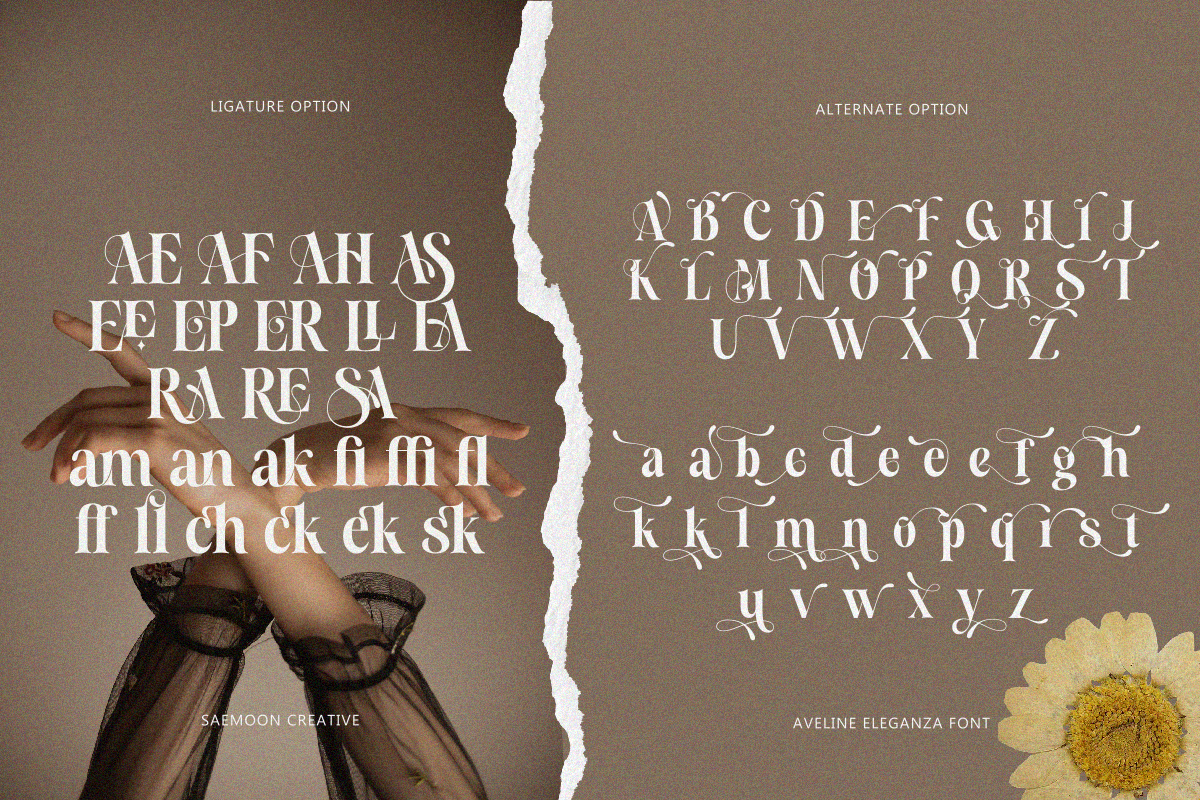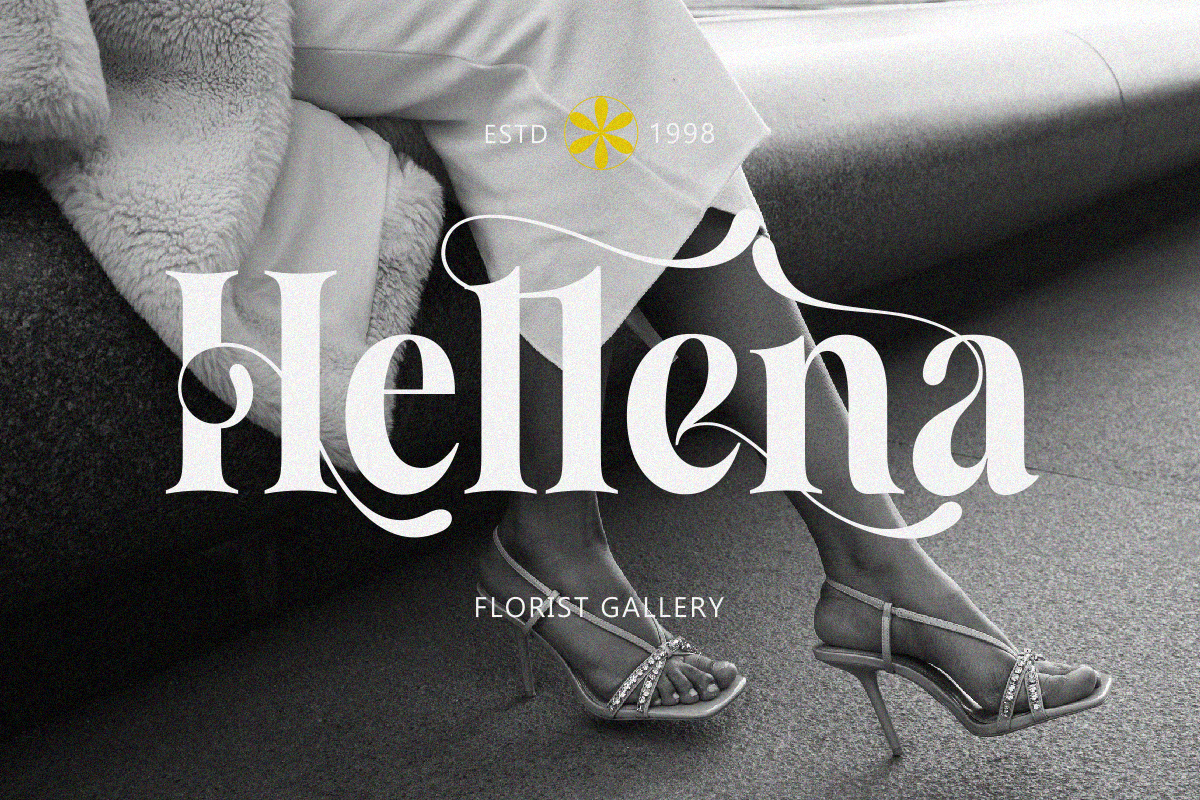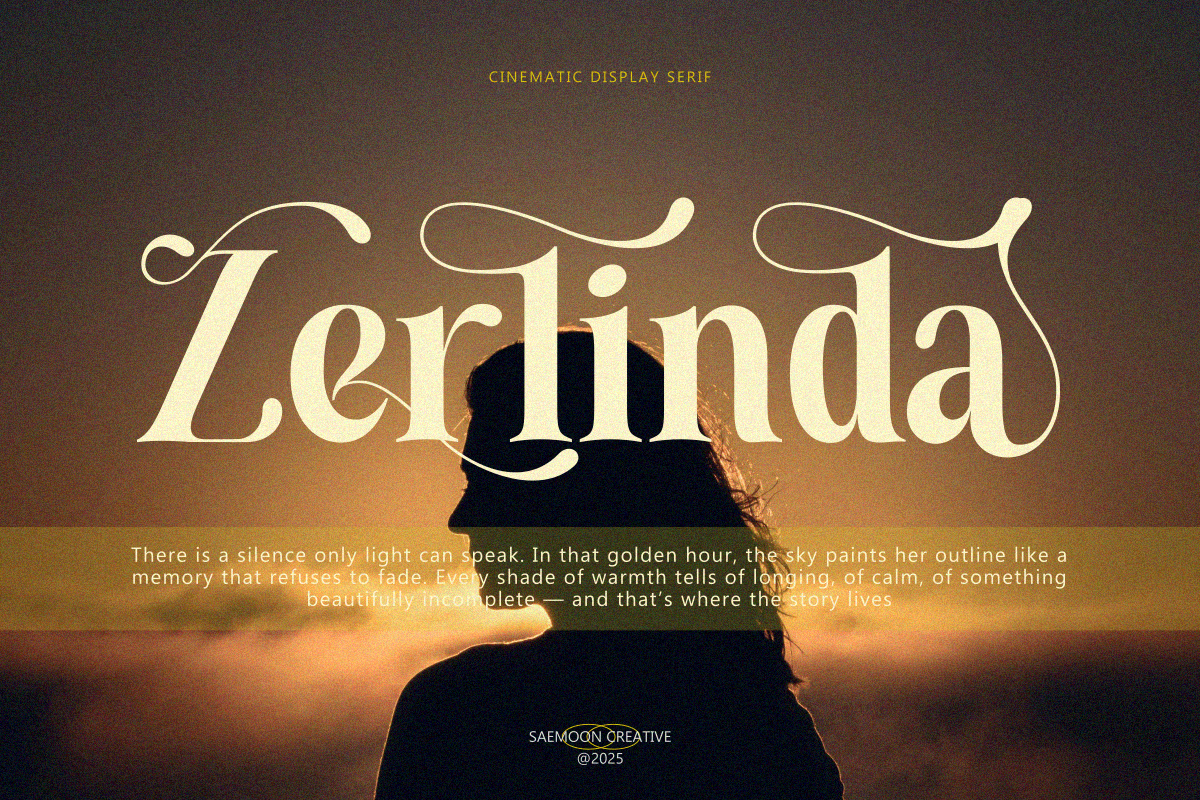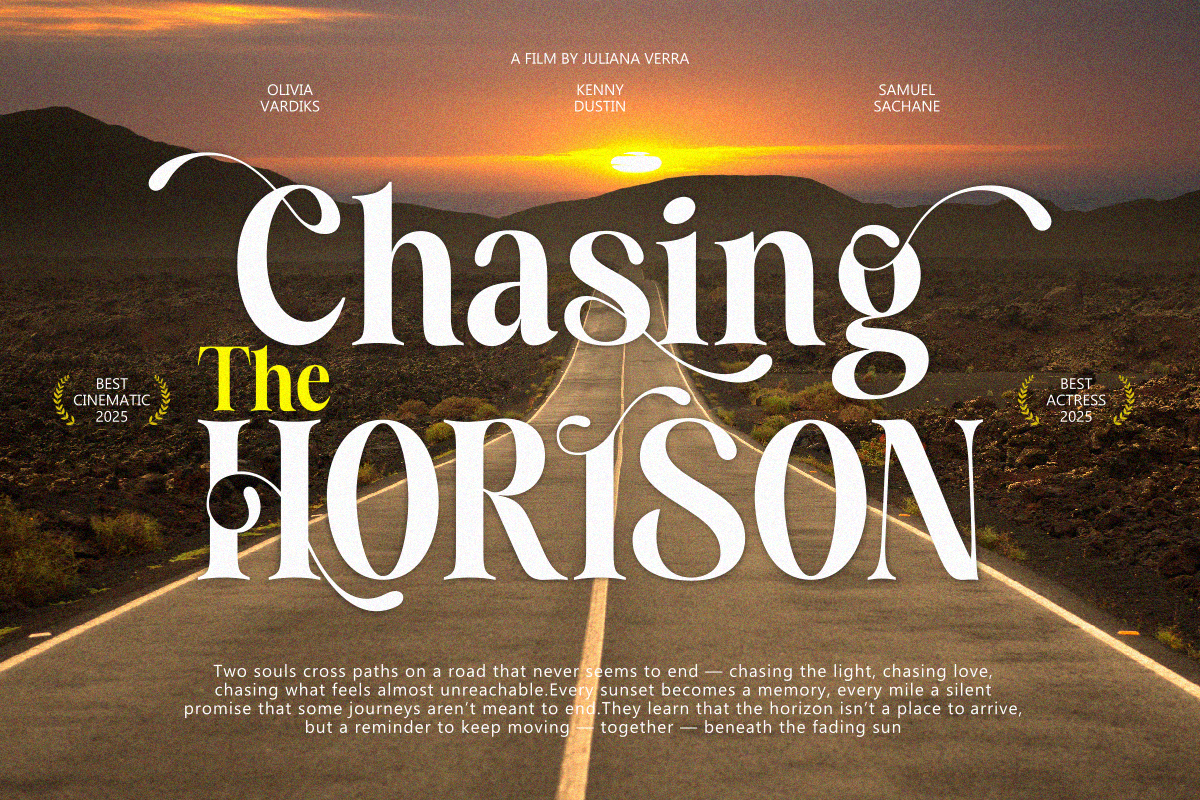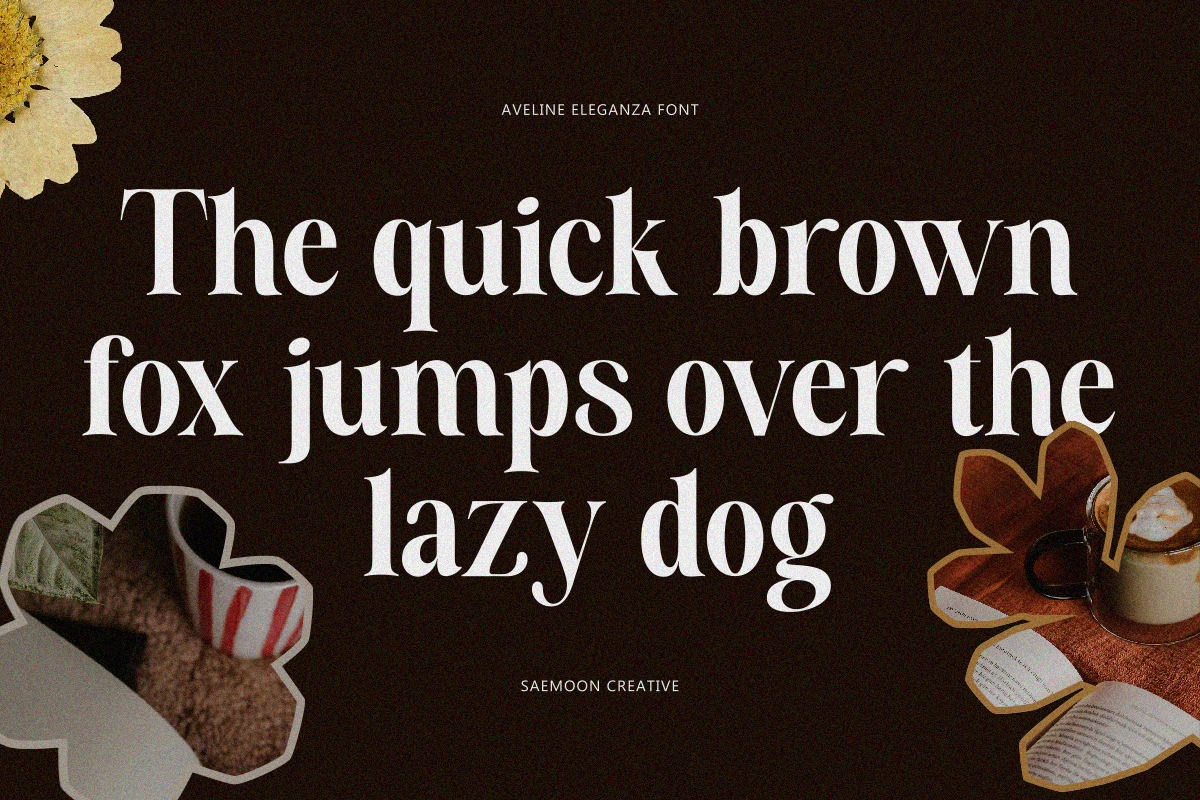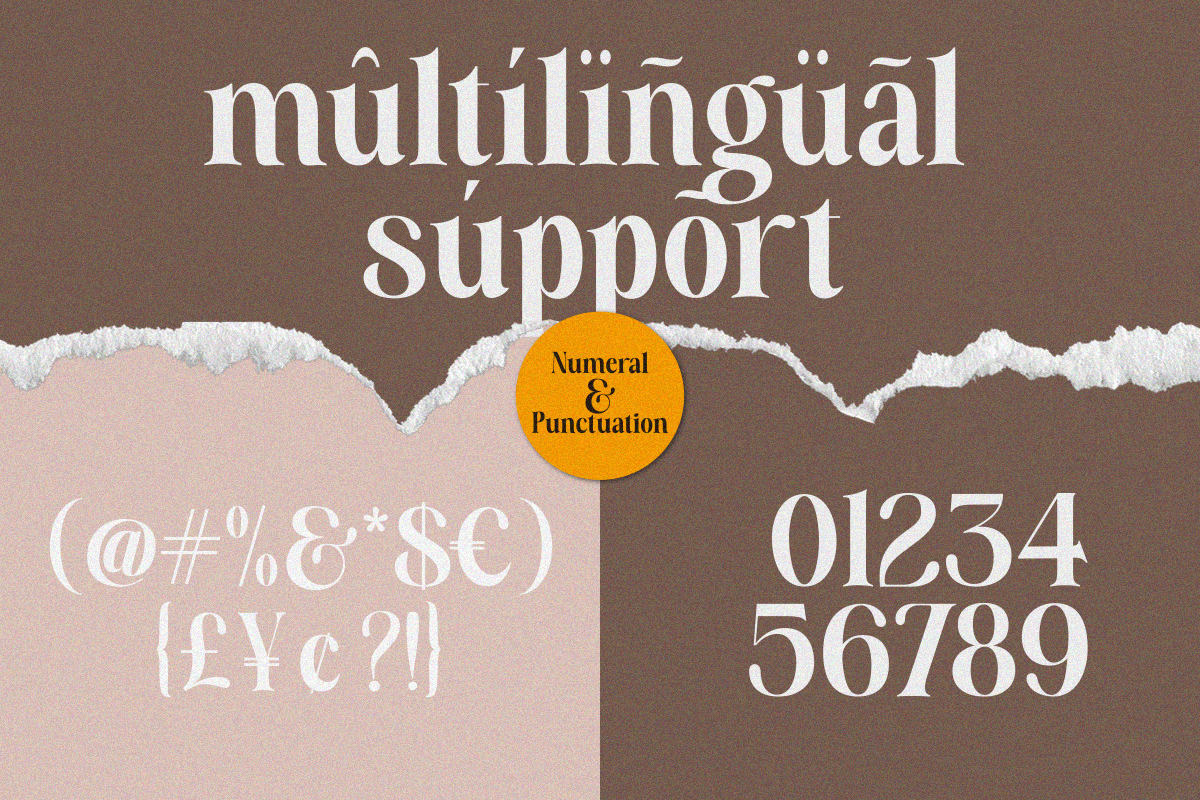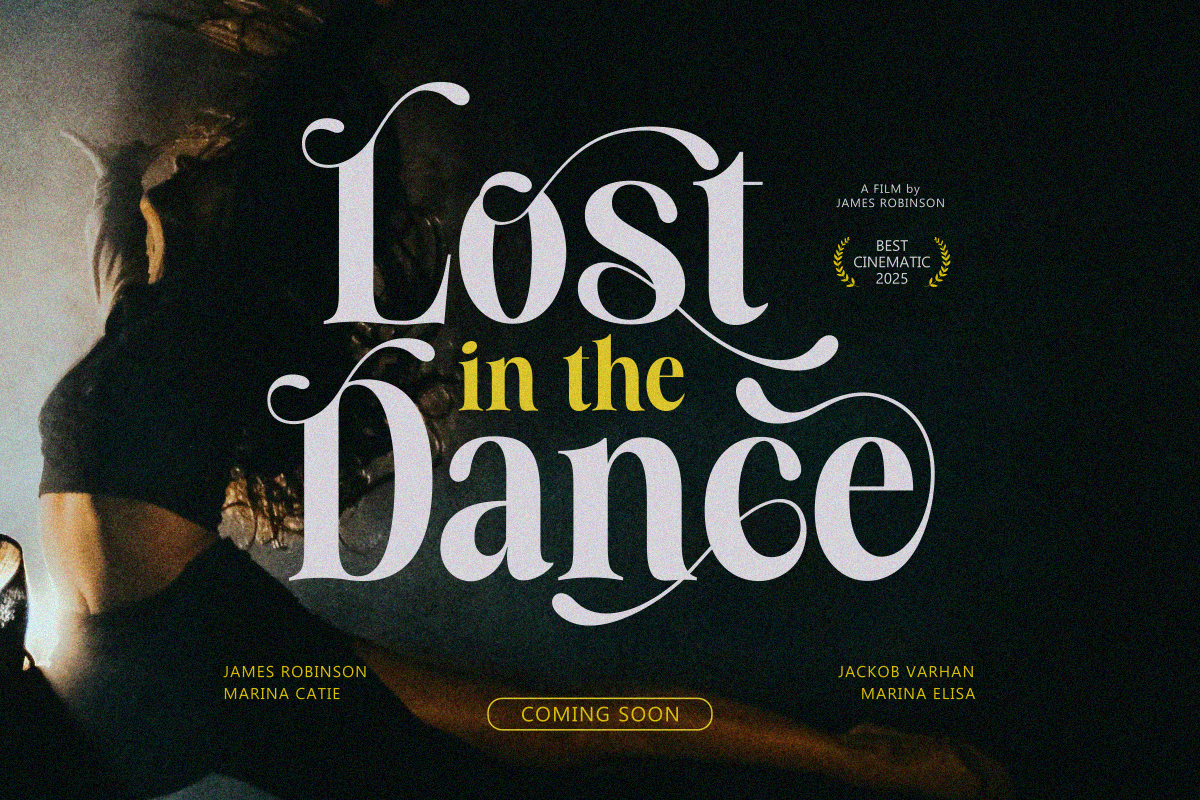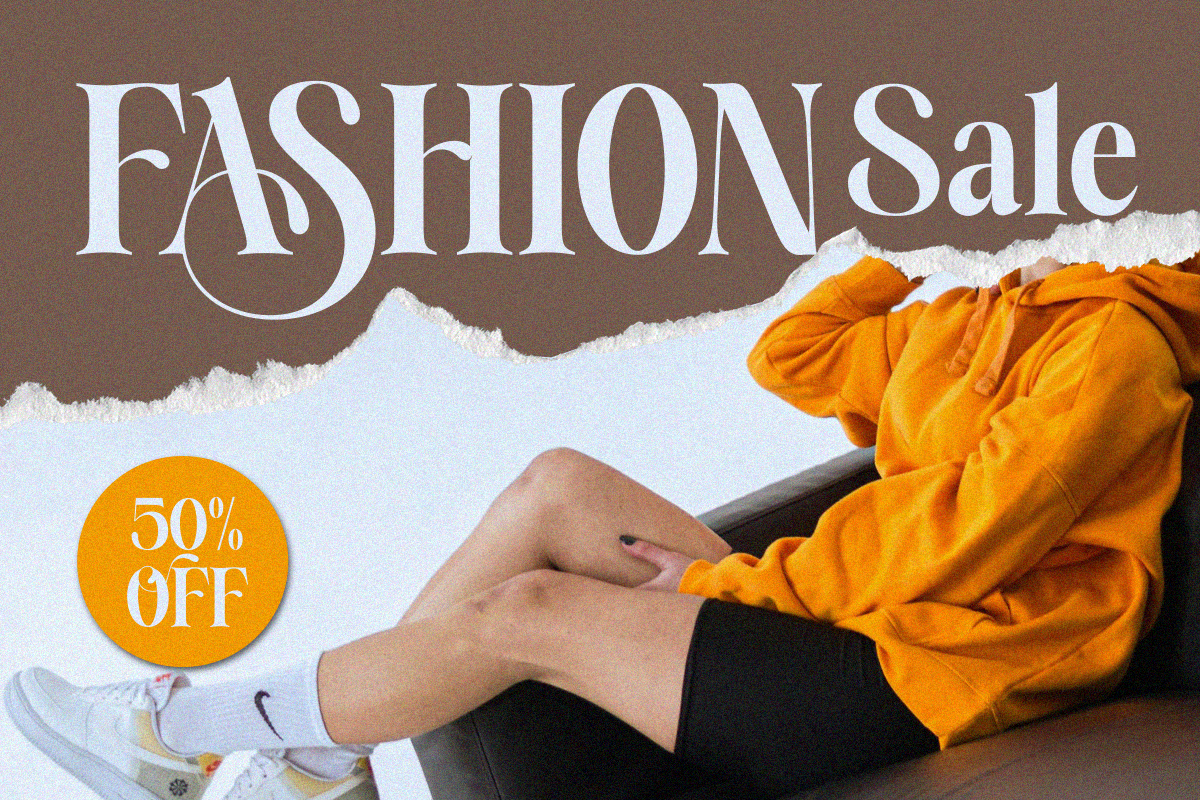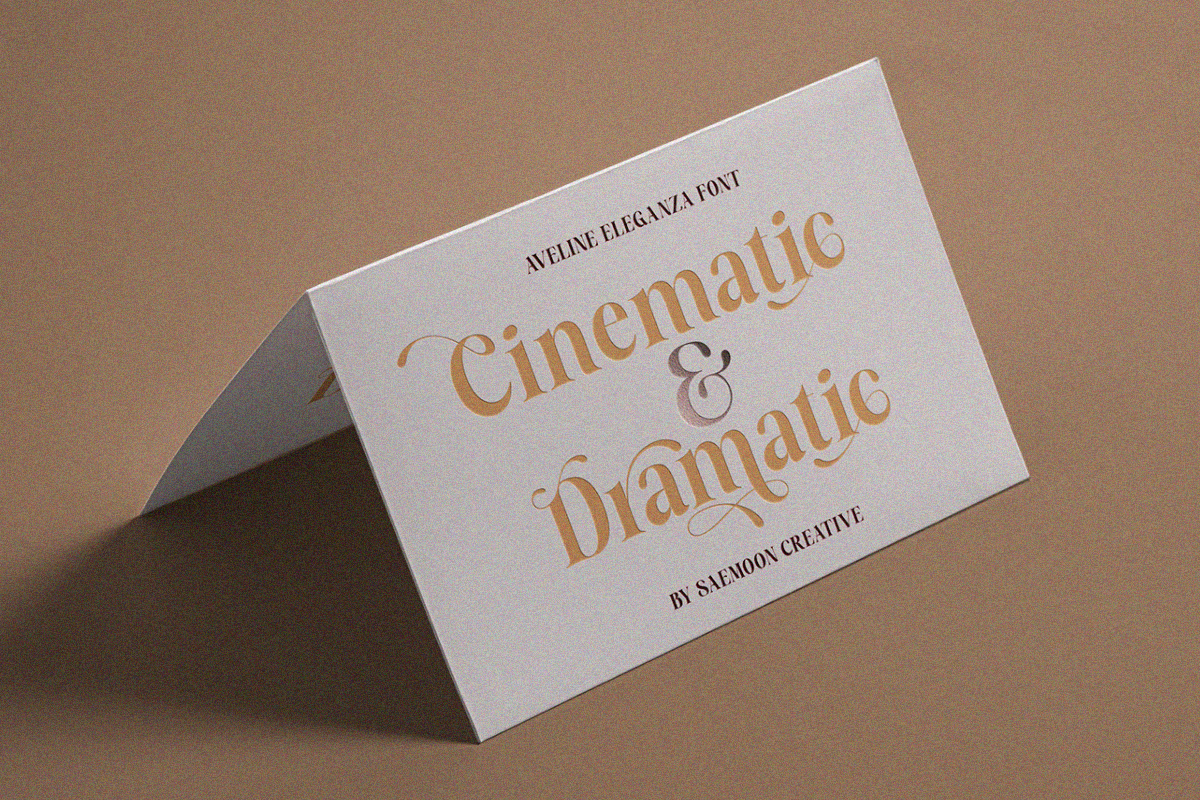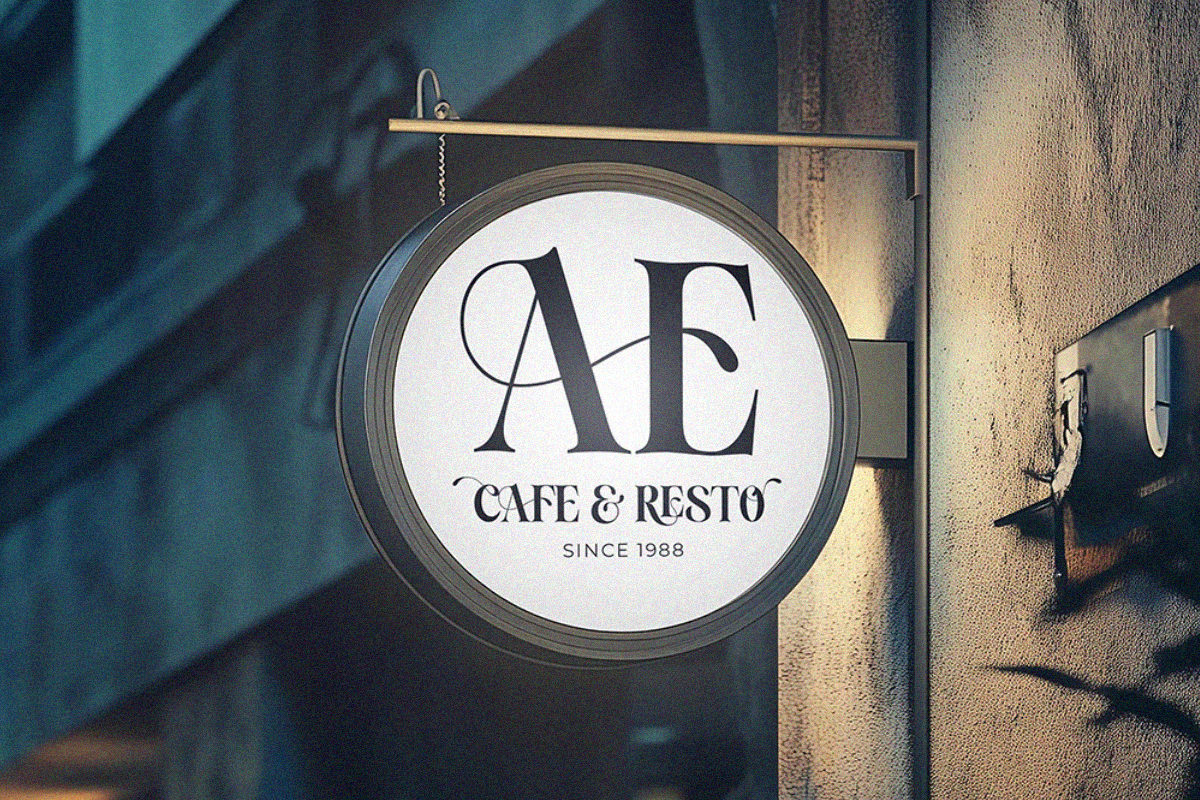
Aveline Eleganza
Aveline Eleganza is a cinematic display serif crafted to bring a luxurious, artistic, and character-rich presence to your designs. With elegant curves, strong contrast, and refined ornamental details, this typeface delivers a dramatic yet sophisticated look. Aveline Eleganza is perfect for premium branding, fashion logos, modern editorials, film posters, luxury packaging, elegant invitations, and high-end visual design. Every letter is designed to stand out with a memorable, stylish blend of classic charm and contemporary expression. What’s Included: Aveline Eleganza (OTF/TTF/WOFF) Stylistic Alternates Ligatures Standard Punctuation Multilingual Support Webfont Easy to use on PC & Mac Elevate your visual projects with Aveline Eleganza — a typeface that brings cinematic elegance to every detail.